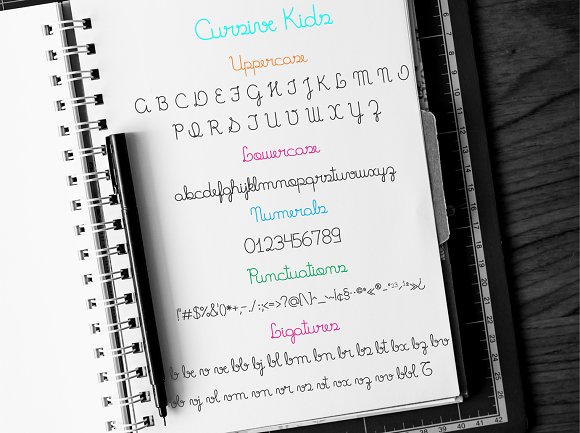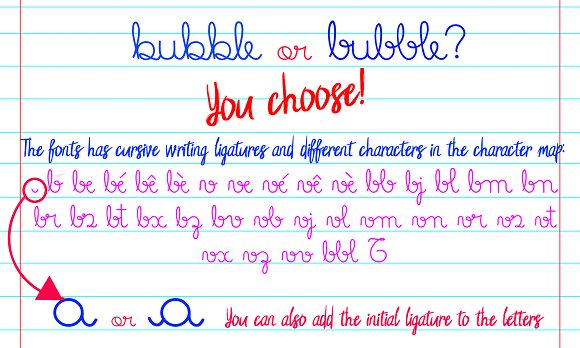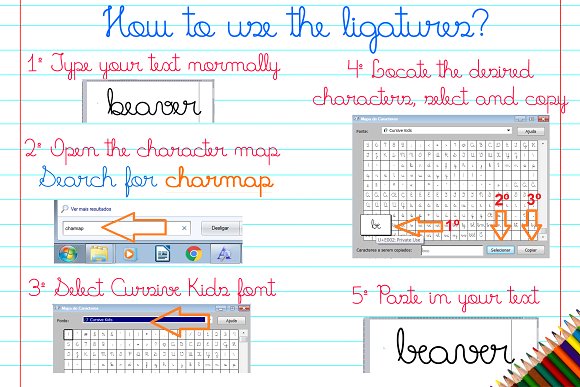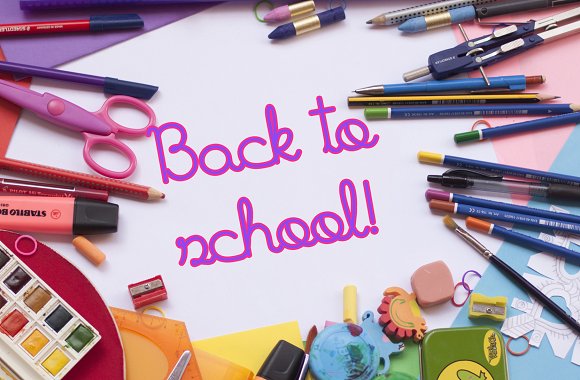
Fonts Cursive Kids and Cursive Trace
Beautiful family of cursive and dotted fonts. Ideal for literacy activities, books, brochures, web design, logos and more. Give a touch of delicacy and creativity to your work!